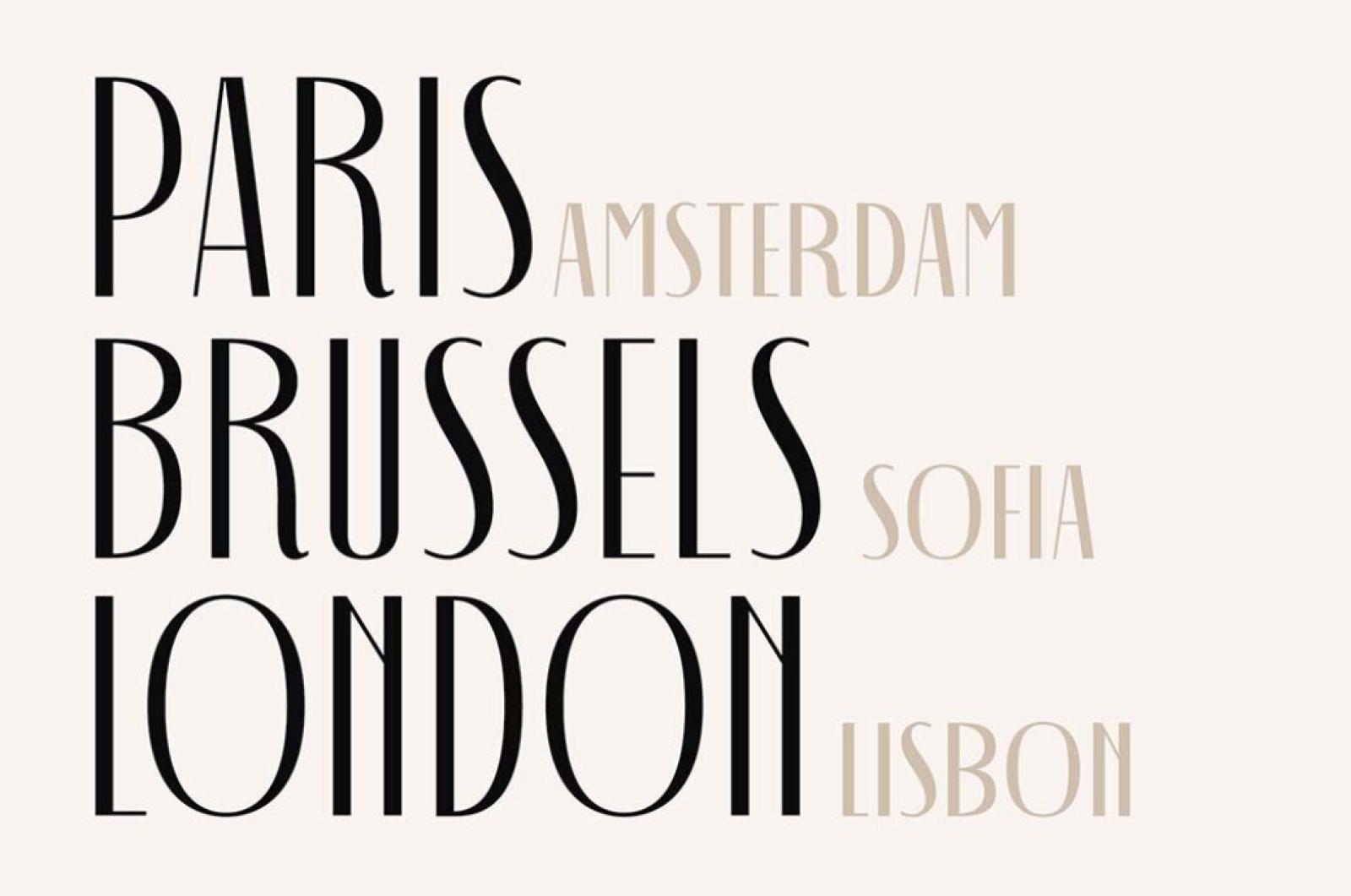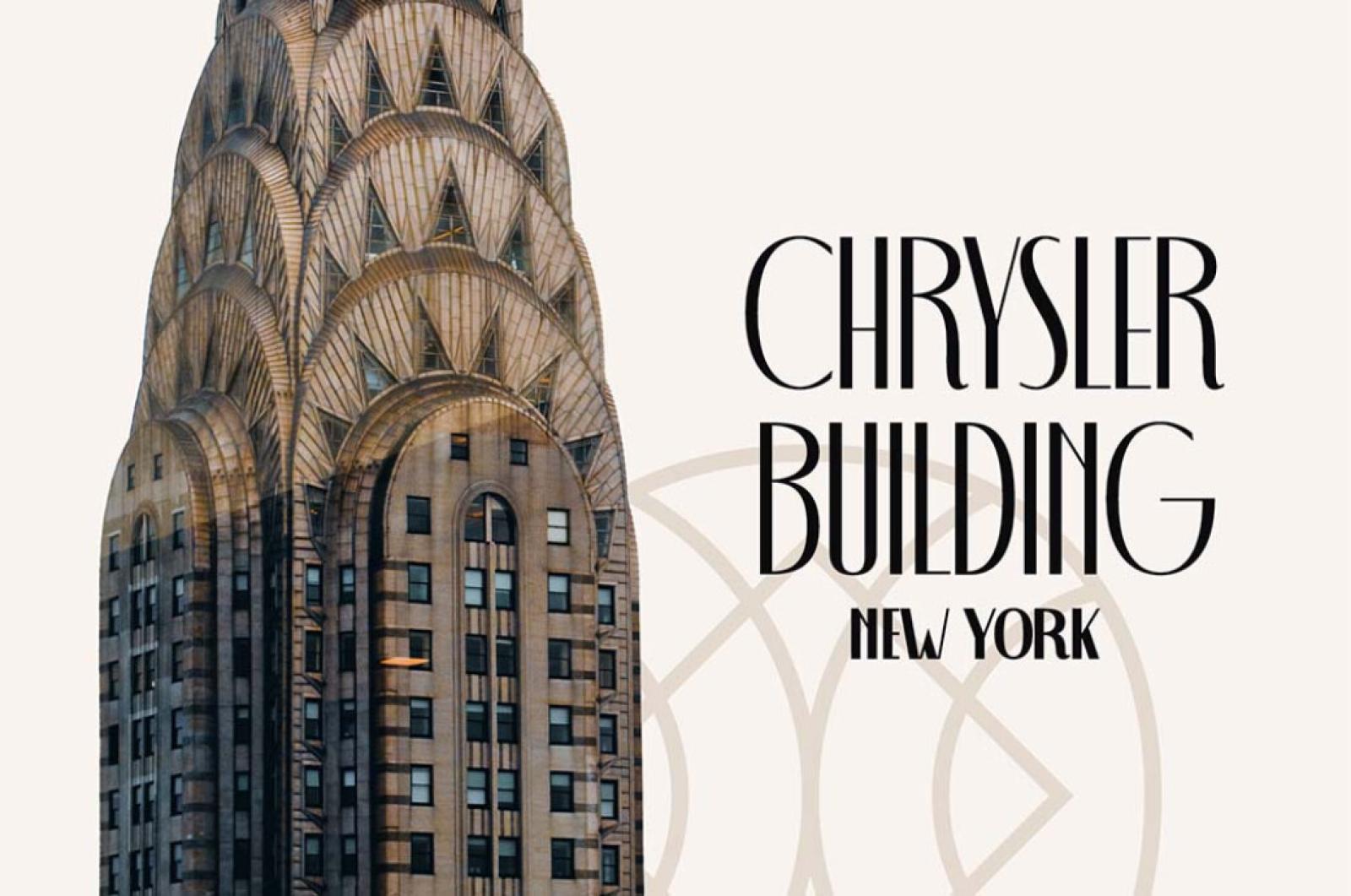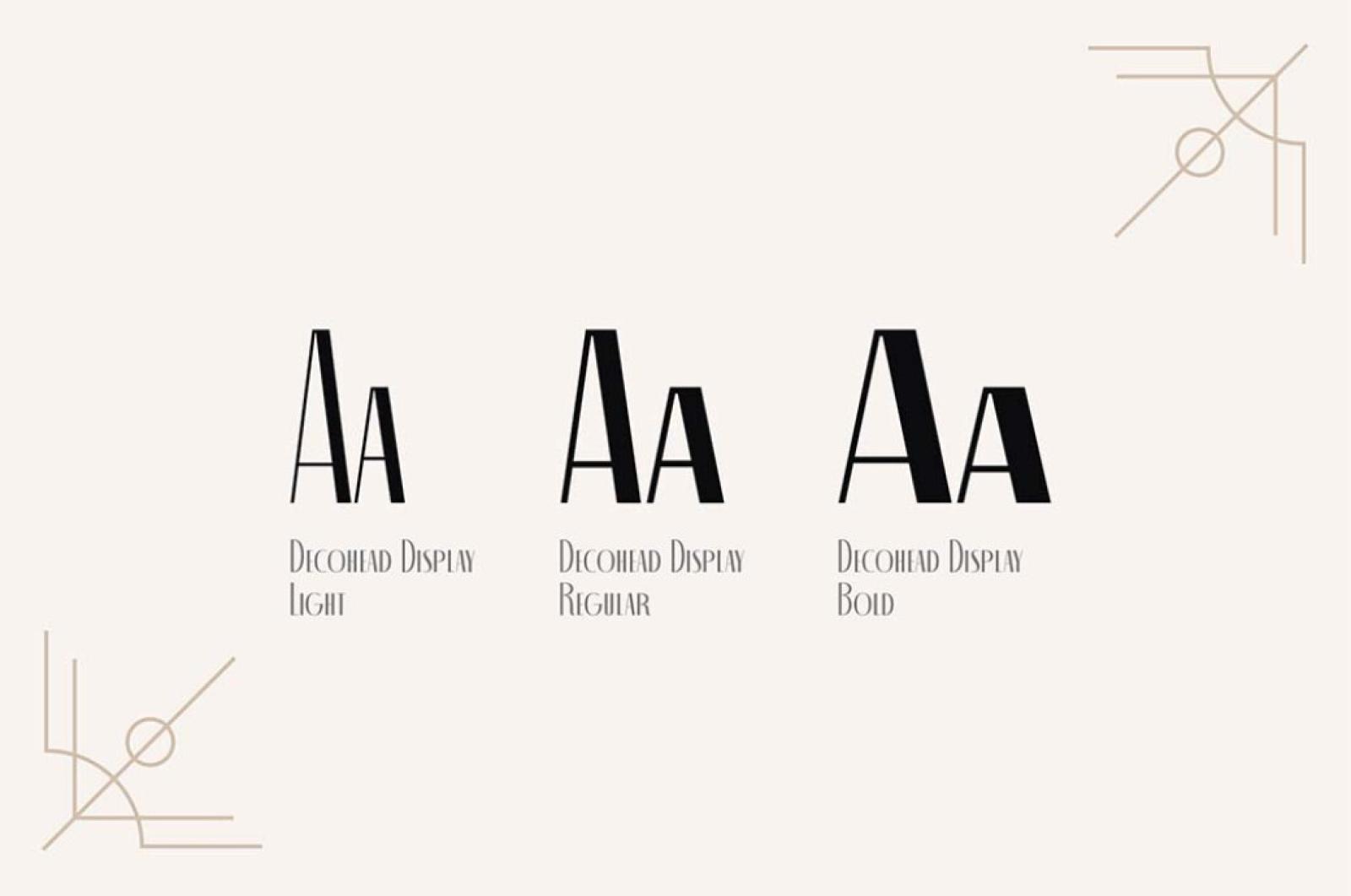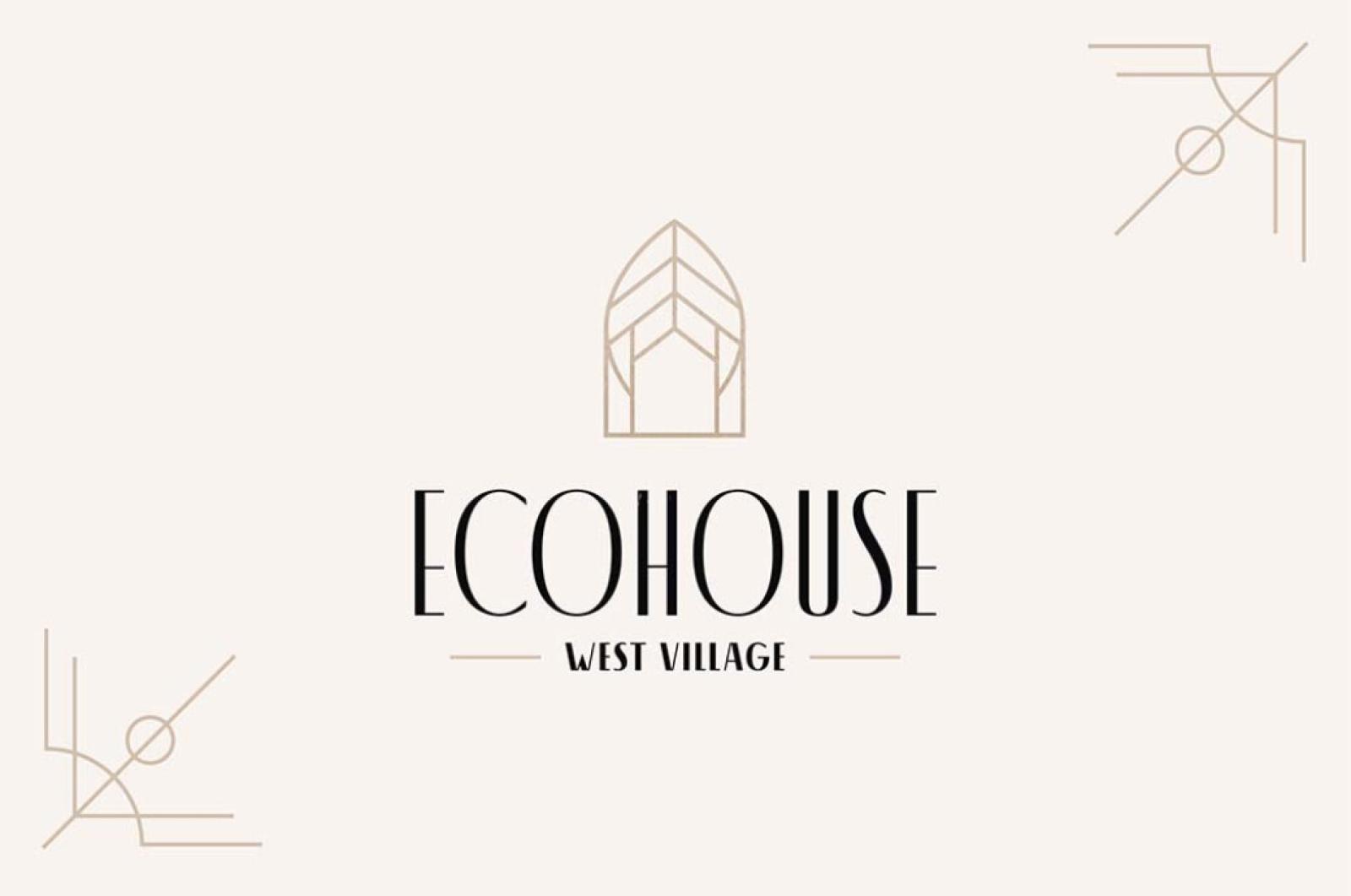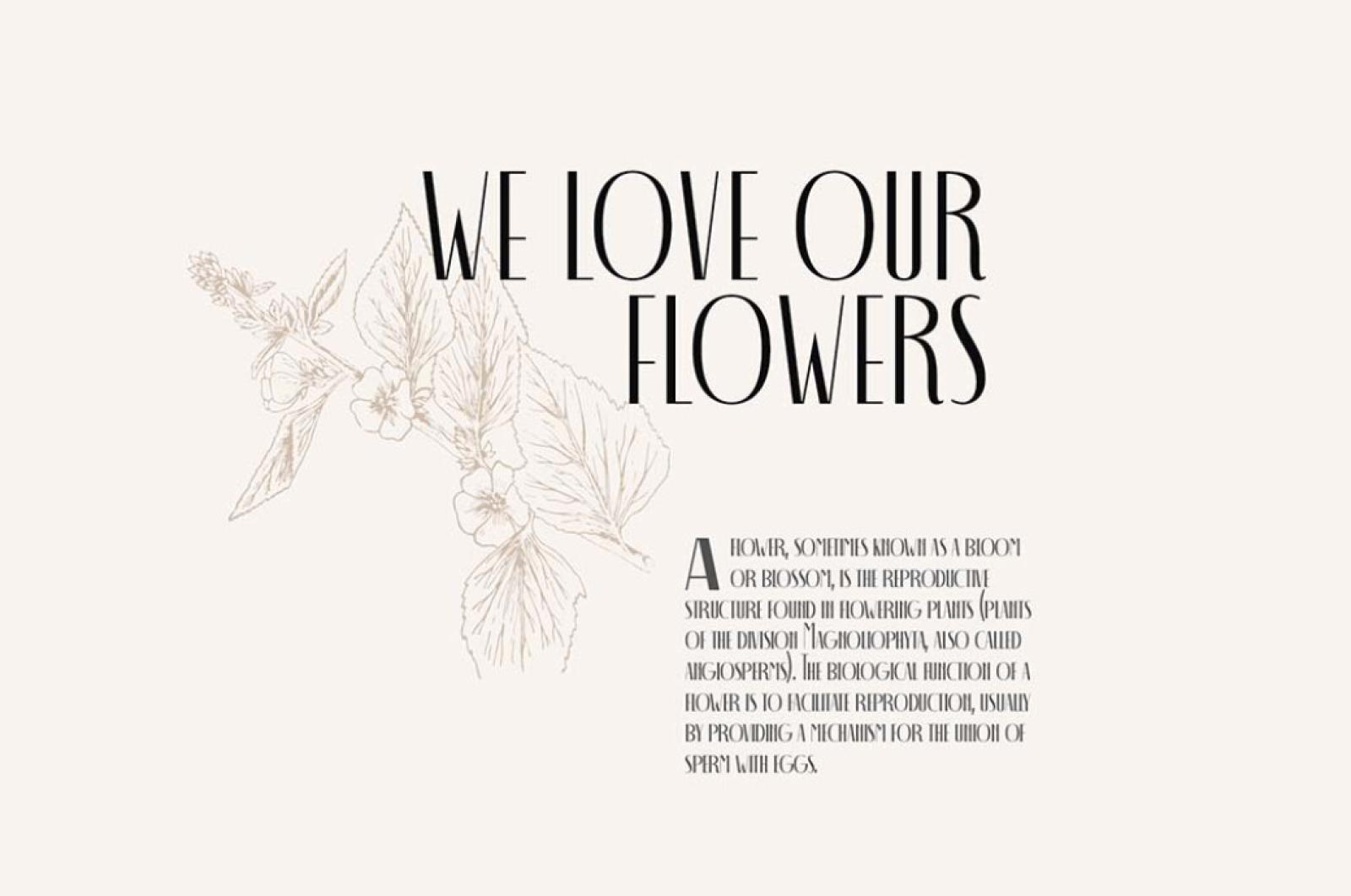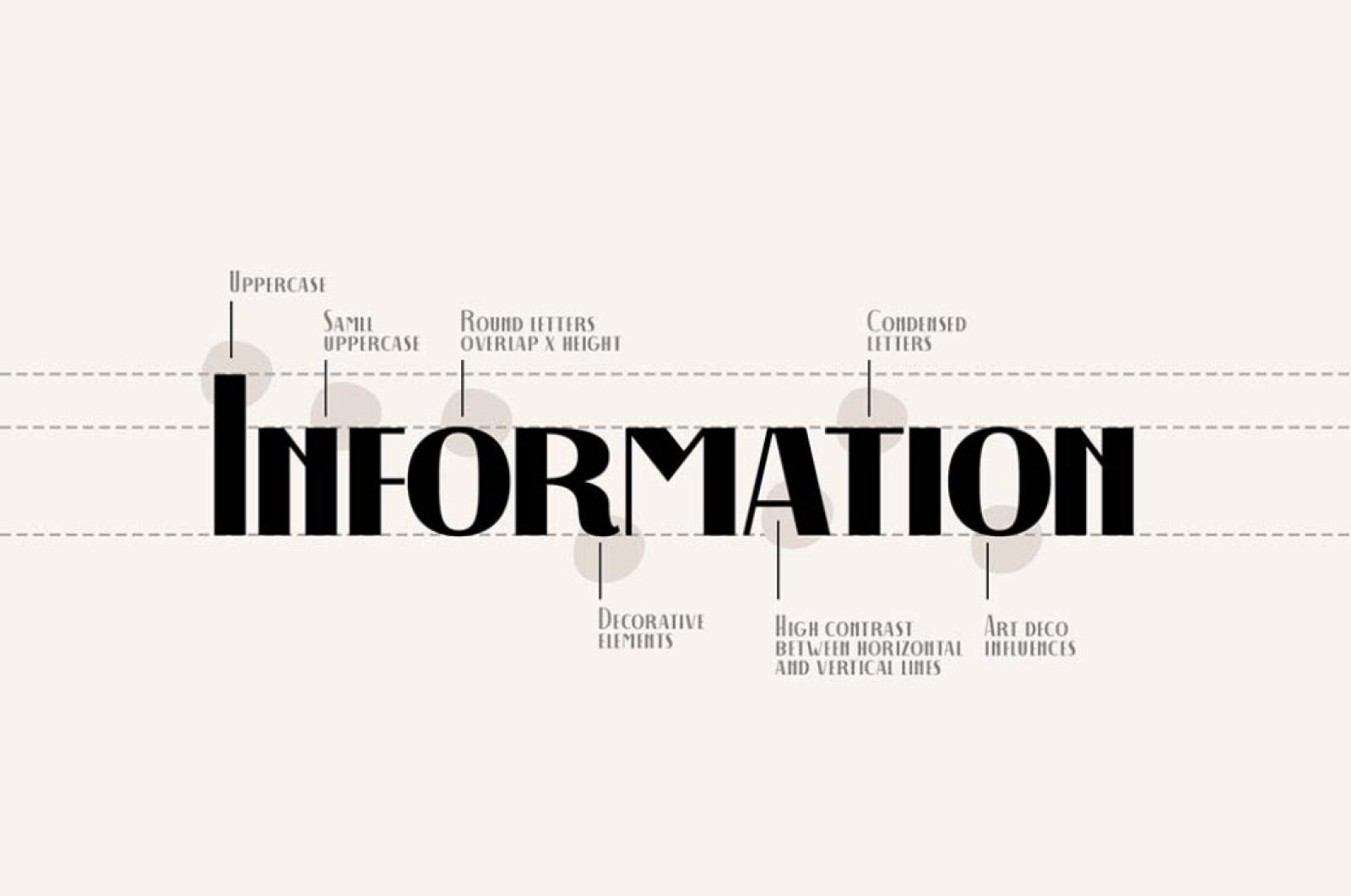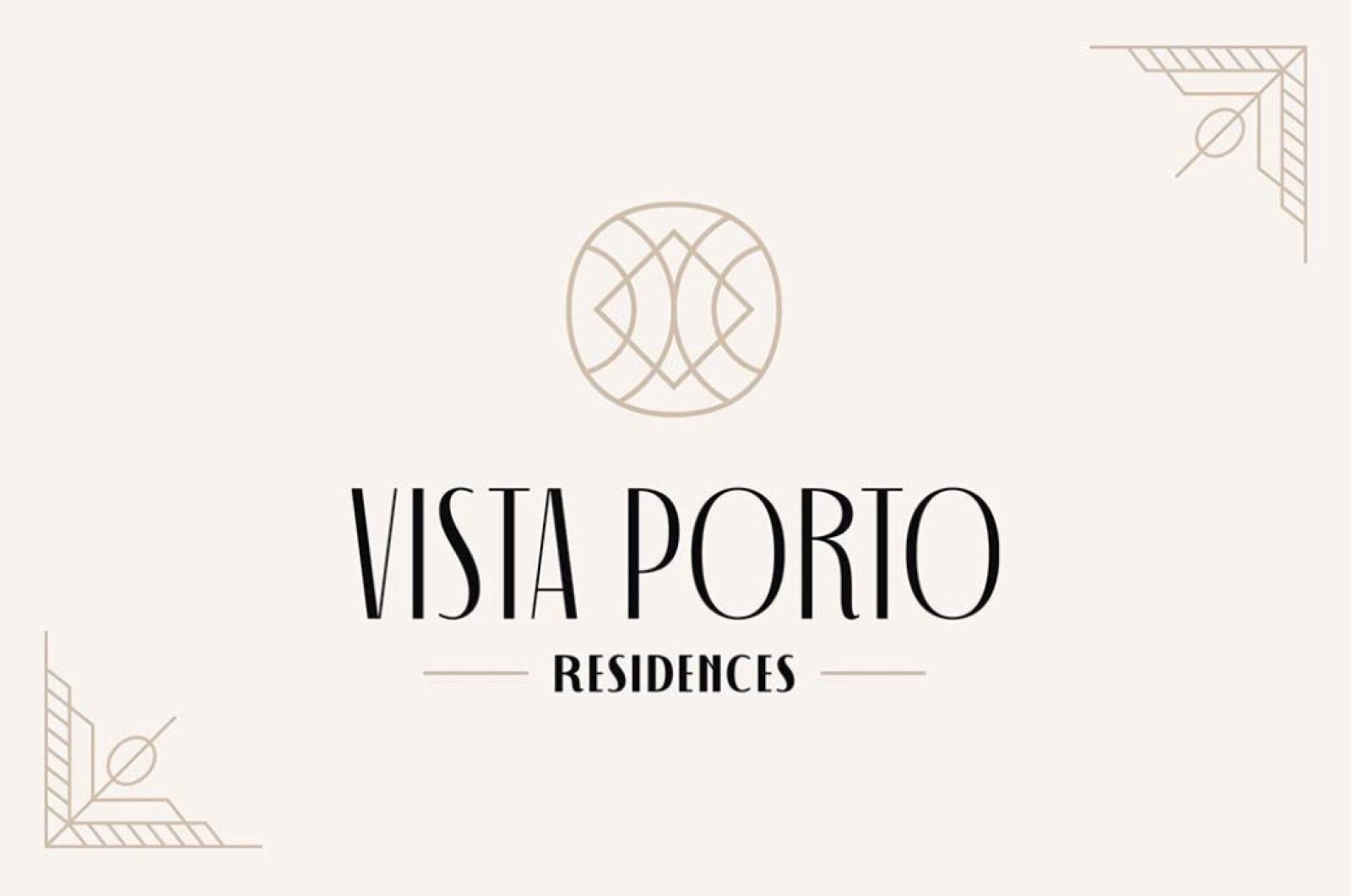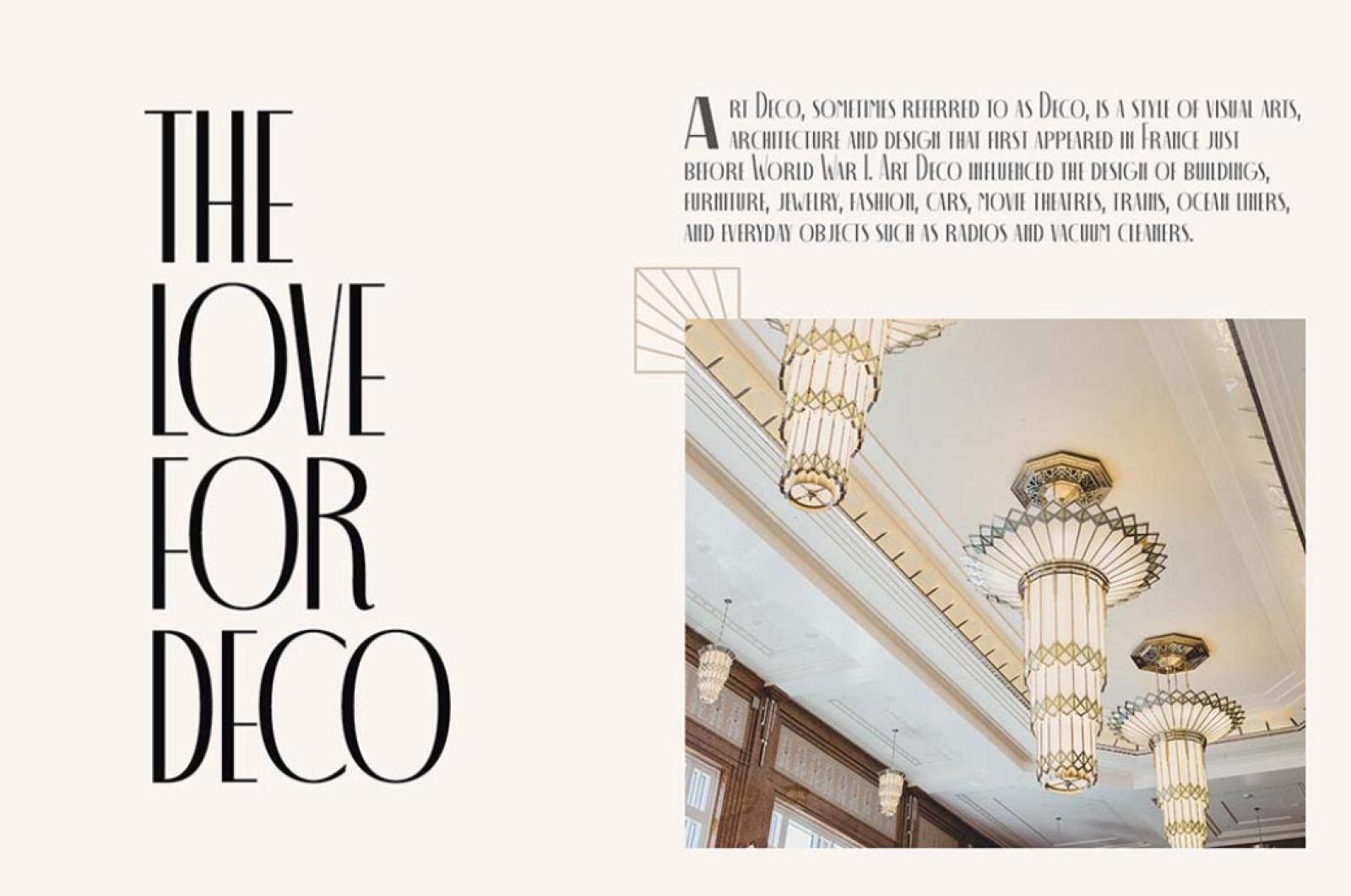
Decohead Display Font
It's Gatsby time, and we have some authentic Art Deco typography for you! Meet Decohead, a font able to add a sophisticated twist to any design.
Decohead Display has a neat appearance that feels fresh, but at the same time, its decorative accents maintain a subtle yet exquisite overall look. It has three styles: Light, Regular, and Bold. Each style provides uppercases and lower uppercases, numbers, and punctuation marks. You can use Decohead Display for almost any design purpose that requires a delicate glamorous touch: posters, magazines, logos, wedding invitations, or branding.